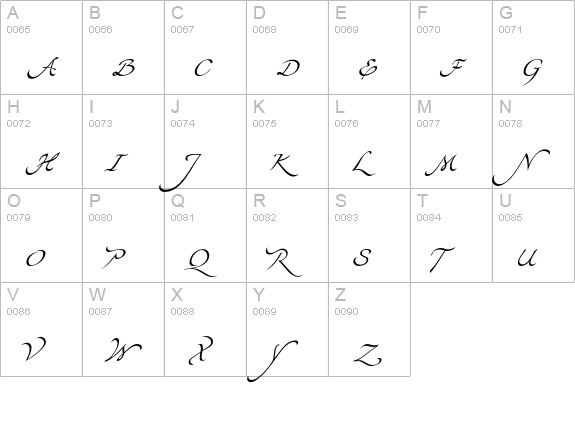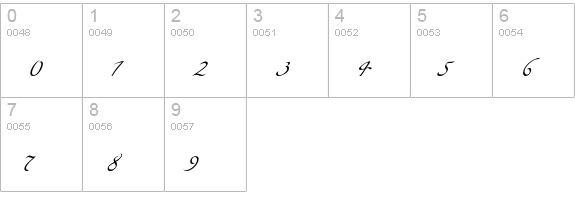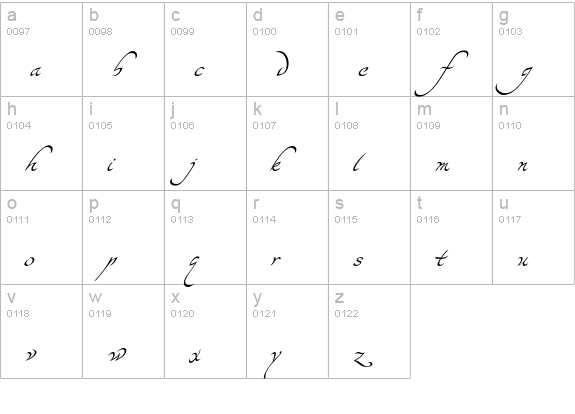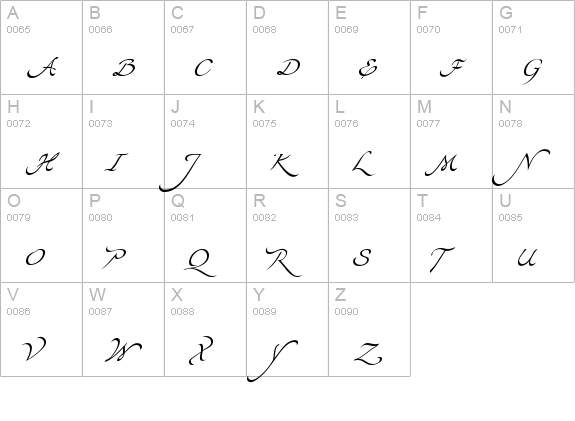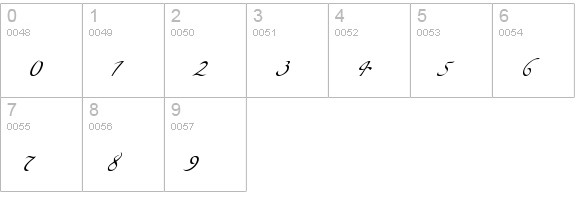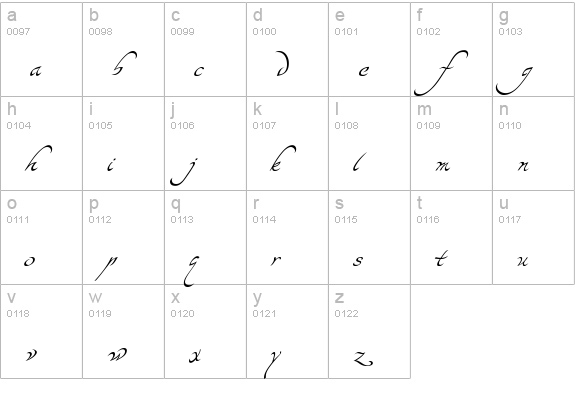
Yevida Font Details
Yevida font is a modern and elegant typeface that exudes sophistication and versatility. With its clean lines and stylish curves, Yevida is perfect for a wide range of design projects, from branding to editorial layouts. This font is available in a variety of weights and styles, making it easy to find the perfect fit for any project. The best part about Yevida font is that it is completely free to download at FontsMarket.com. Whether you're a professional designer looking to add a fresh new font to your collection or a hobbyist looking to spice up your personal projects, Yevida is the perfect choice. Download it today and unleash your creativity with this stunning typeface.